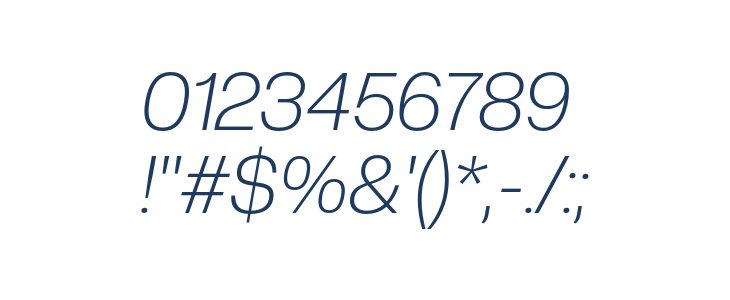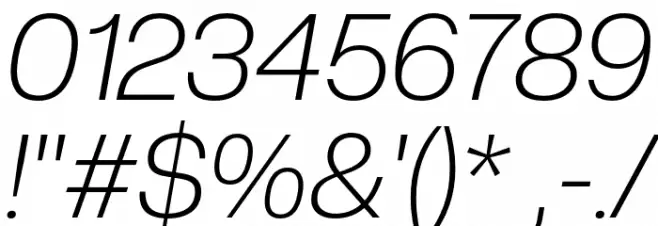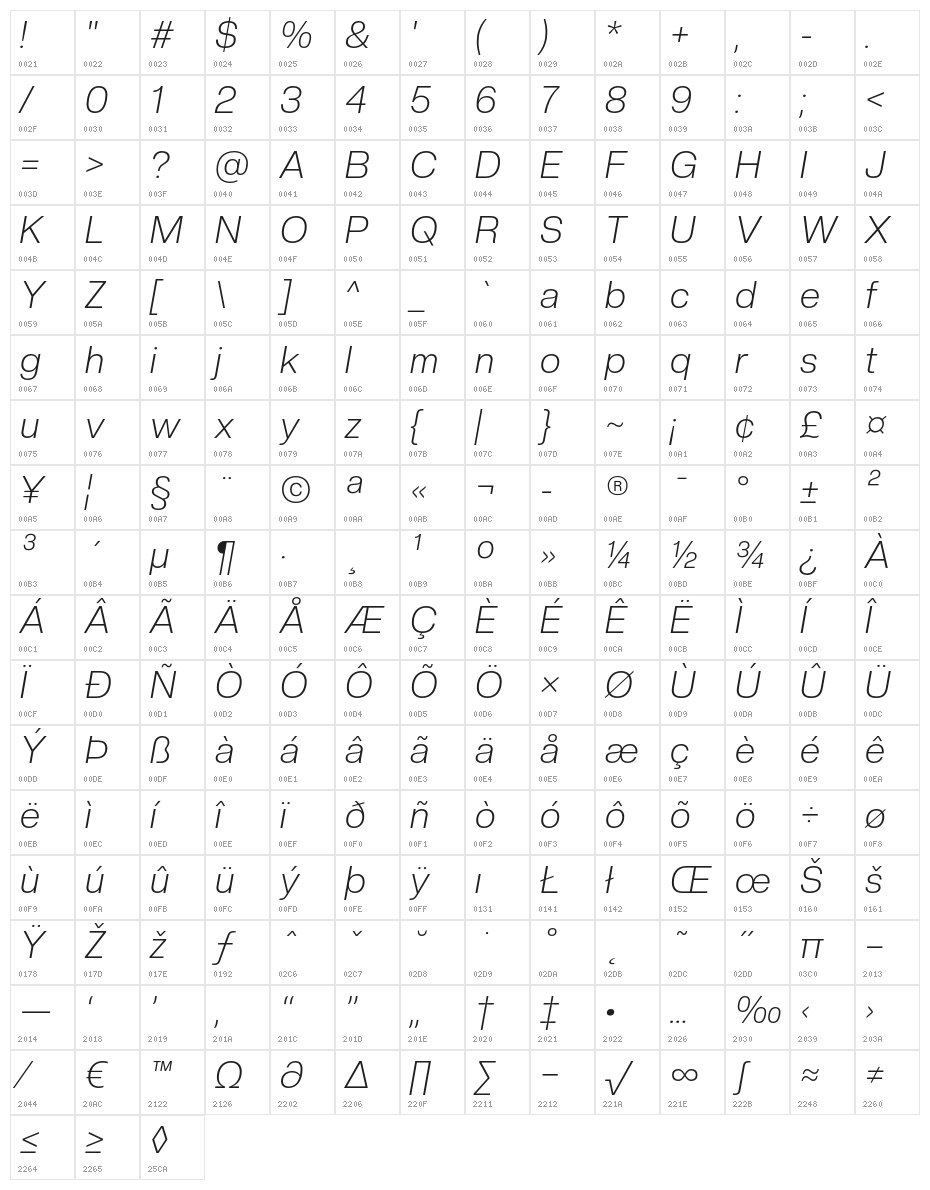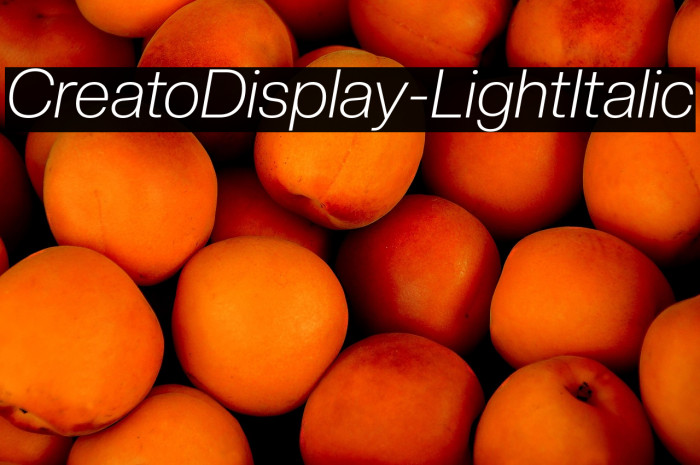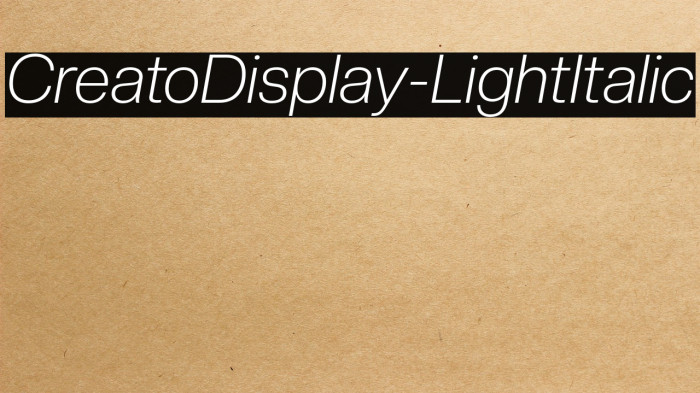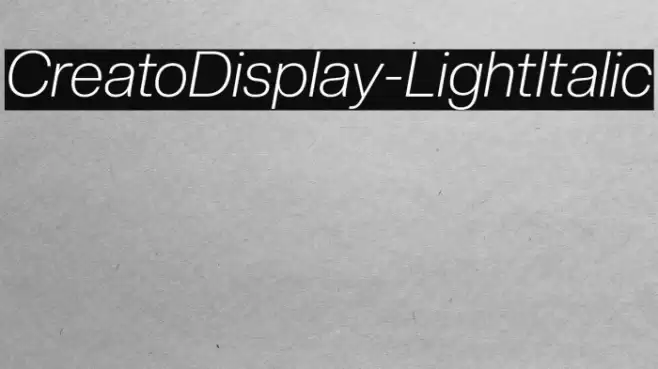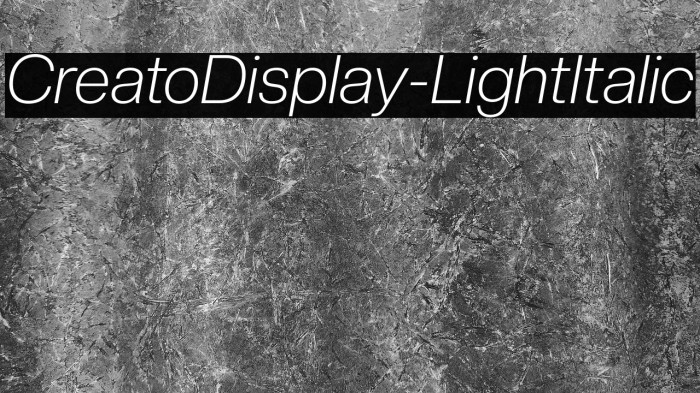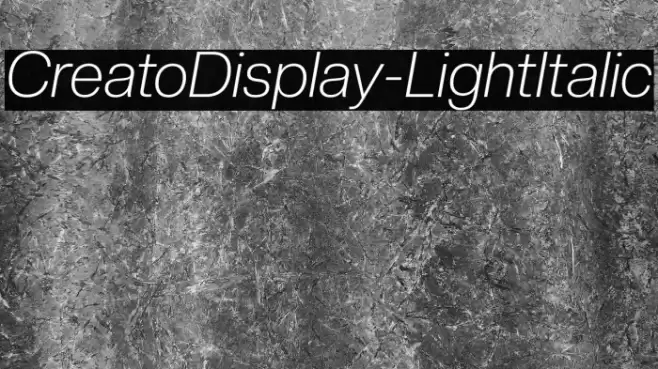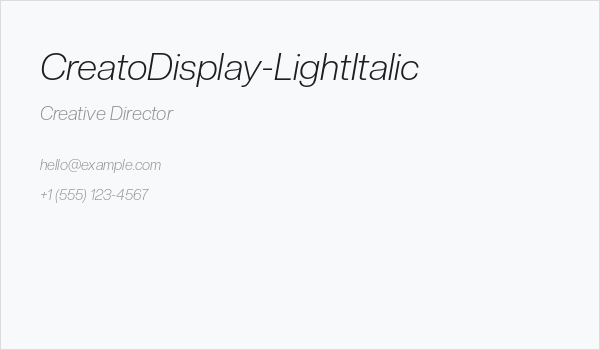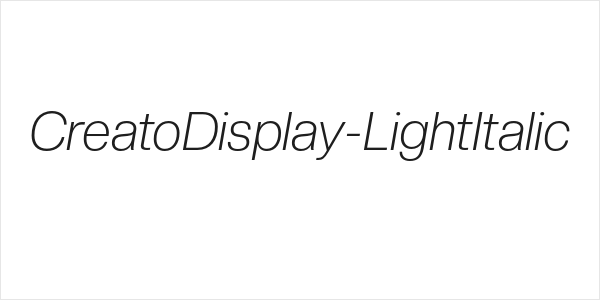
CreatoDisplay-LightItalic Font
CreatoDisplay-LightItalic Description
This font exhibits a sleek and modern aesthetic with its light and italicized form. The characters are elegantly elongated, offering a sense of sophistication and fluidity. The sans-serif style provides a clean and uncluttered appearance, making it highly readable. The strokes are consistent and smooth, with a slight slant that adds a dynamic feel. The numerals and special characters maintain the same stylistic approach, ensuring uniformity across all elements. This font is ideal for projects that require a contemporary and stylish touch.
| Proposed Projects | Ideal for fashion magazines, modern branding, elegant invitations, and sleek website headers. |